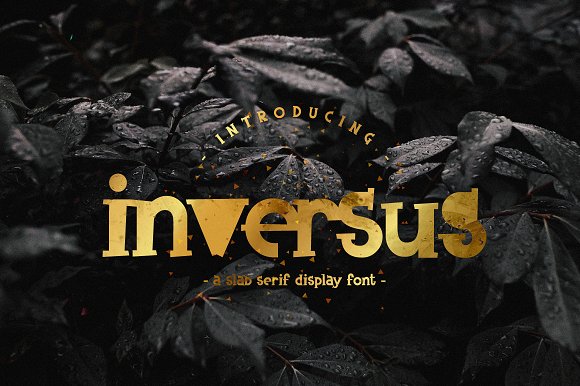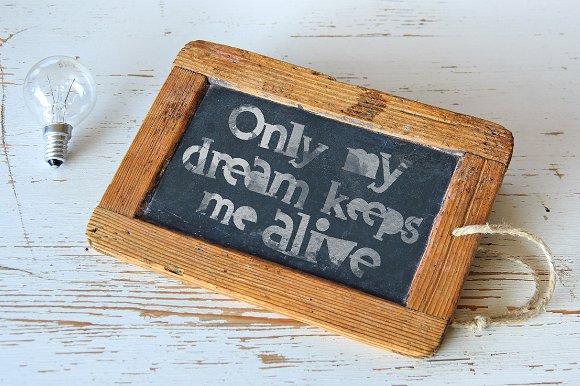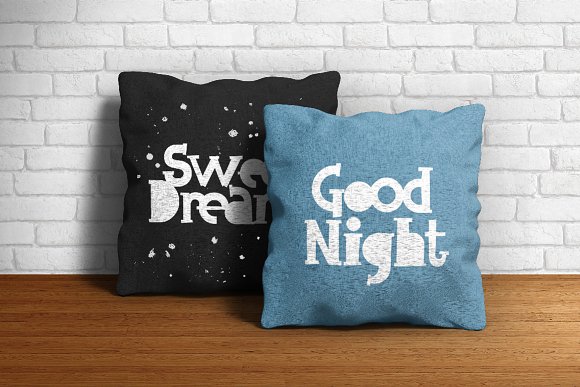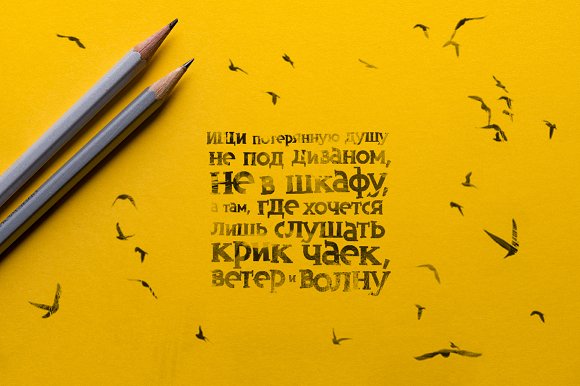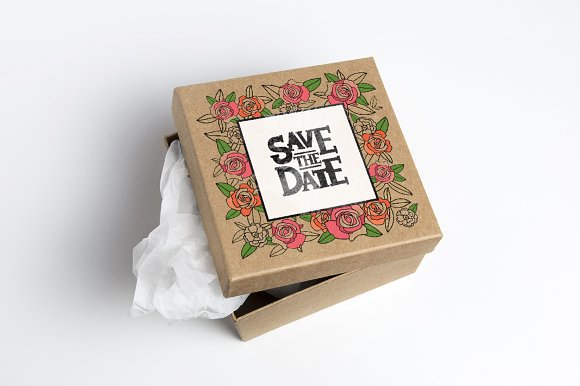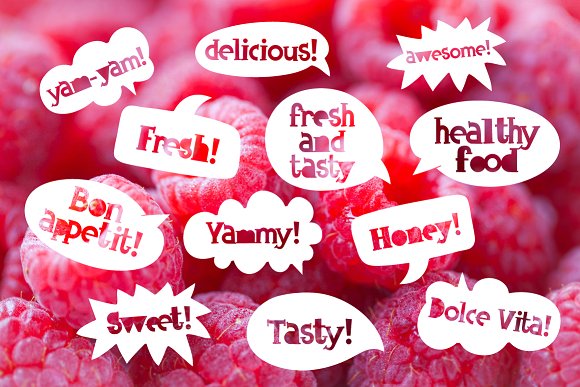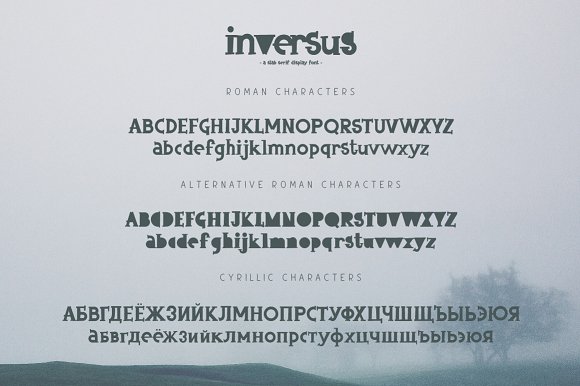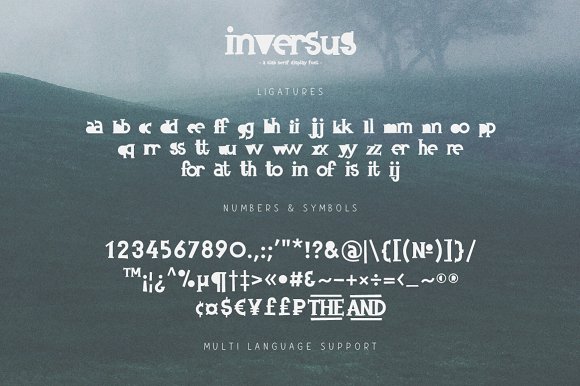
Inversus
Inversus: A Bold and Striking Slab Serif Font
Inversus is a stunning slab serif font that stands out with its bold and distinctive character. This font is designed to make a strong statement, making it an excellent choice for various design projects that aim to capture attention and leave a lasting impression.
Key Features of Inversus Font
• Striking Design: Inversus boasts a bold and eye-catching appearance that demands attention.
• Versatile Application: Suitable for a wide range of design projects, from branding to apparel.
• Statement-Making: Ideal for designs that need to convey confidence and impact.
Inversus is particularly well-suited for:
• Branding and logo design
• Poster and billboard designs
• Packaging designs that need to stand out on shelves
• T-shirt and apparel graphics
• Social media graphics and digital marketing materials
Comparison with Other Slab Serif Fonts
While Inversus shares the bold characteristics of other slab serifs like Tecnica Slab Family, it offers a unique and more experimental design. Unlike more traditional slab serifs such as Osgood Slab, Inversus brings a modern and edgy feel to typography.
When using Inversus in your designs, consider the following tips:
• Use it for headlines or short blocks of text to maximize its impact
• Pair with simpler sans-serif fonts for body text to create contrast
• Experiment with different sizes and weights to create hierarchy in your designs
• Consider using it in projects where a bold, contemporary look is desired
Inversus is an excellent choice for designers looking to add a bold and contemporary slab serif to their typographic toolkit. Its striking design makes it perfect for projects that need to make a strong visual statement. Whether you’re working on logo designs, poster layouts, or creating eye-catching website headers, Inversus offers the perfect blend of impact and style.